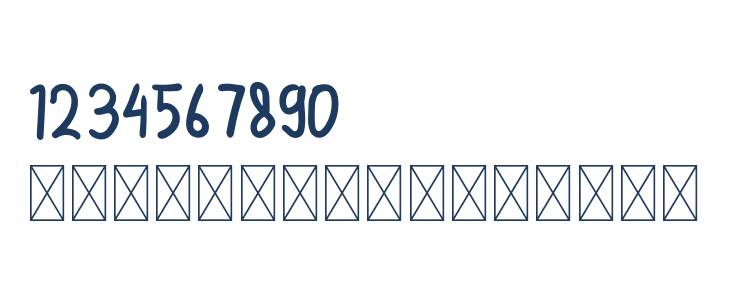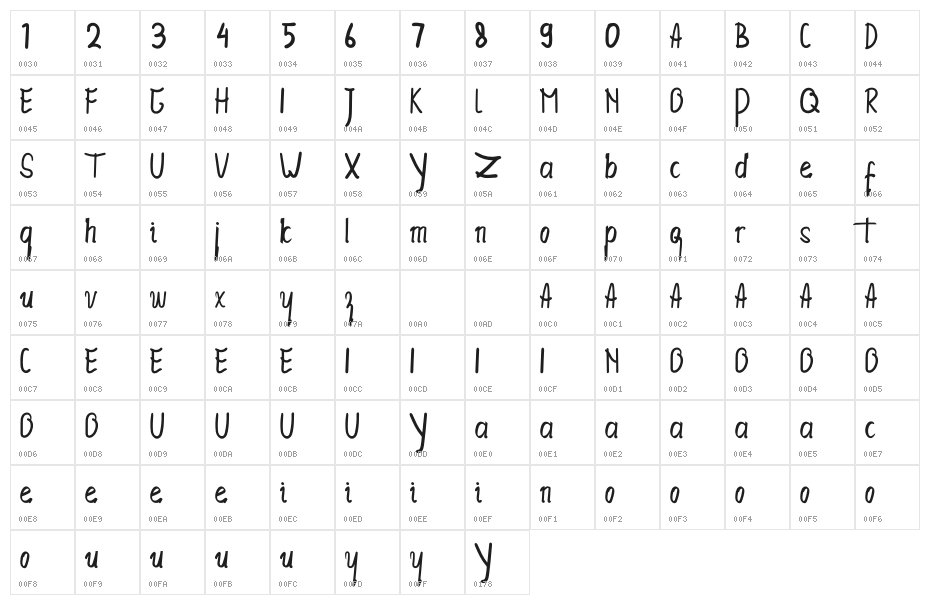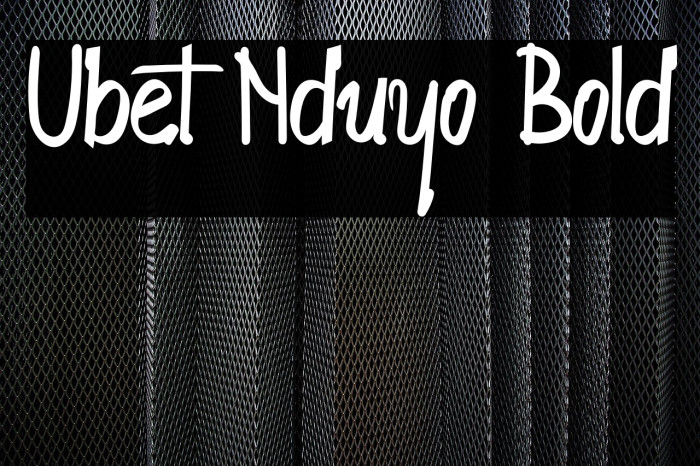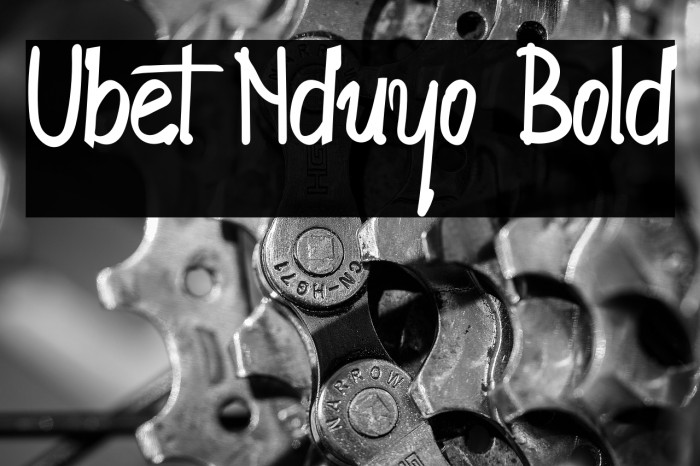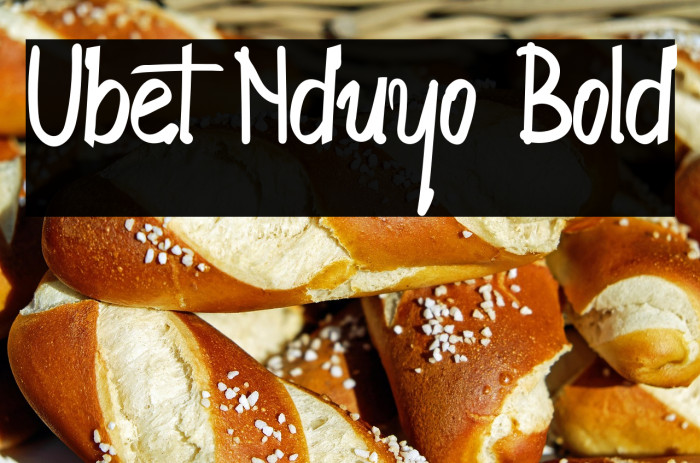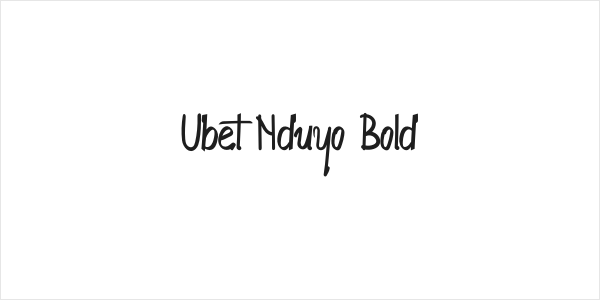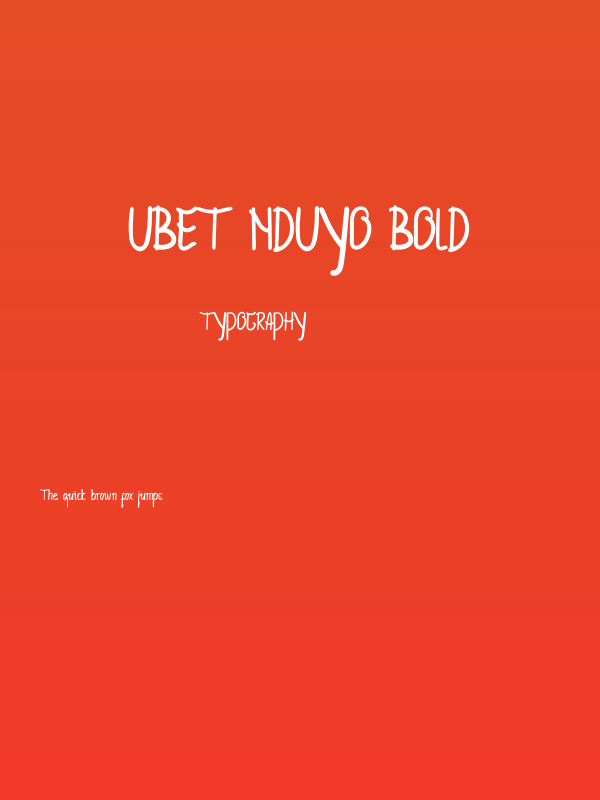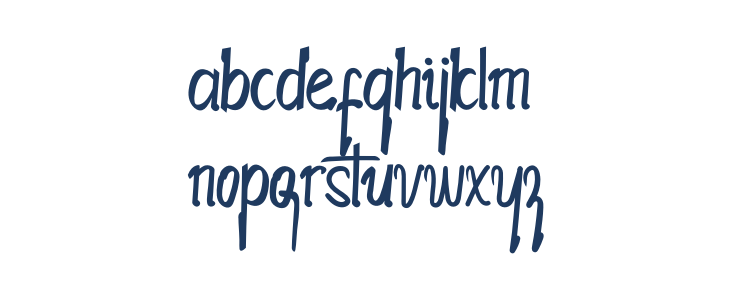
Ubet Nduyo Bold Font
Ubet Nduyo Bold Description
This font exhibits a unique and playful handwritten style, characterized by its tall, narrow letterforms and slightly irregular strokes. The uppercase letters are bold and expressive, with distinct variations in line thickness that add a dynamic feel. The lowercase letters maintain the same whimsical quality, with some characters featuring exaggerated loops and curves. The numerals are consistent with the overall style, offering a bold yet approachable appearance. The font's special characters are creatively designed, fitting seamlessly with the rest of the set. Overall, this font combines a sense of fun with readability, making it suitable for a variety of creative projects.
| Proposed Projects | Ideal for children's books, greeting cards, playful branding, and creative posters. |